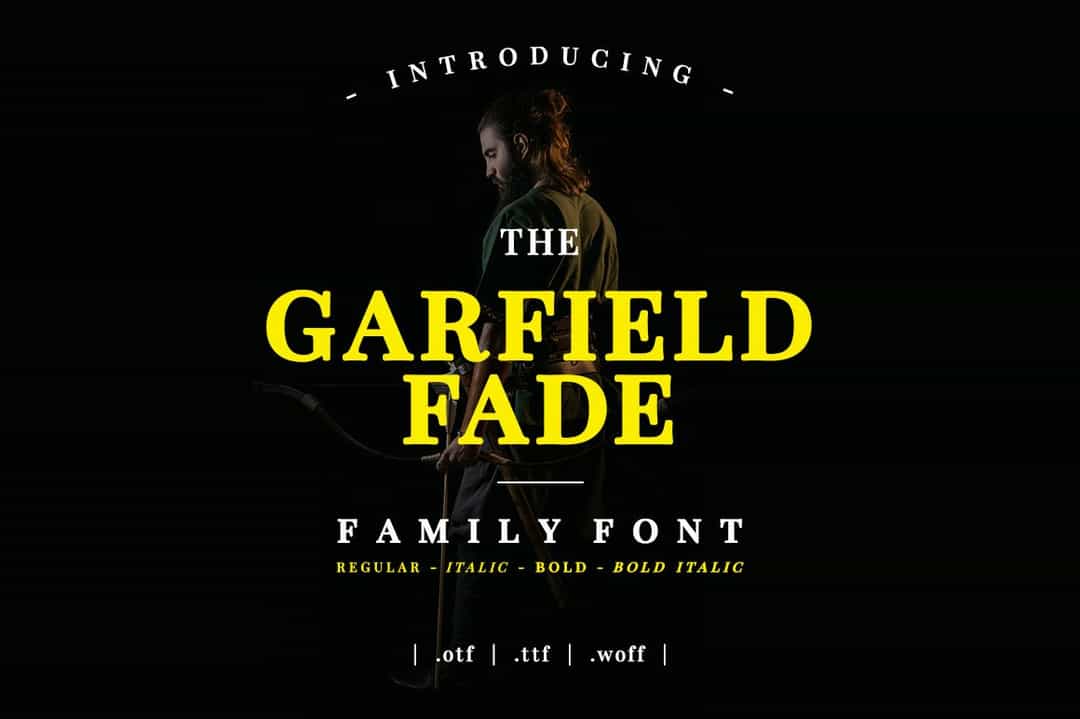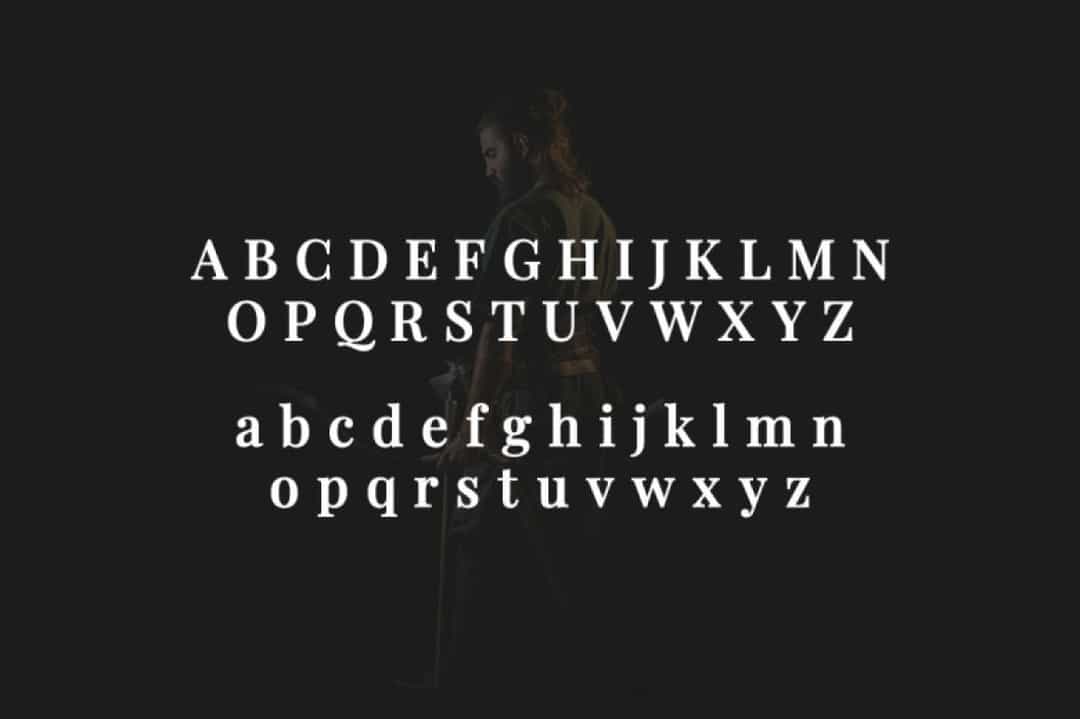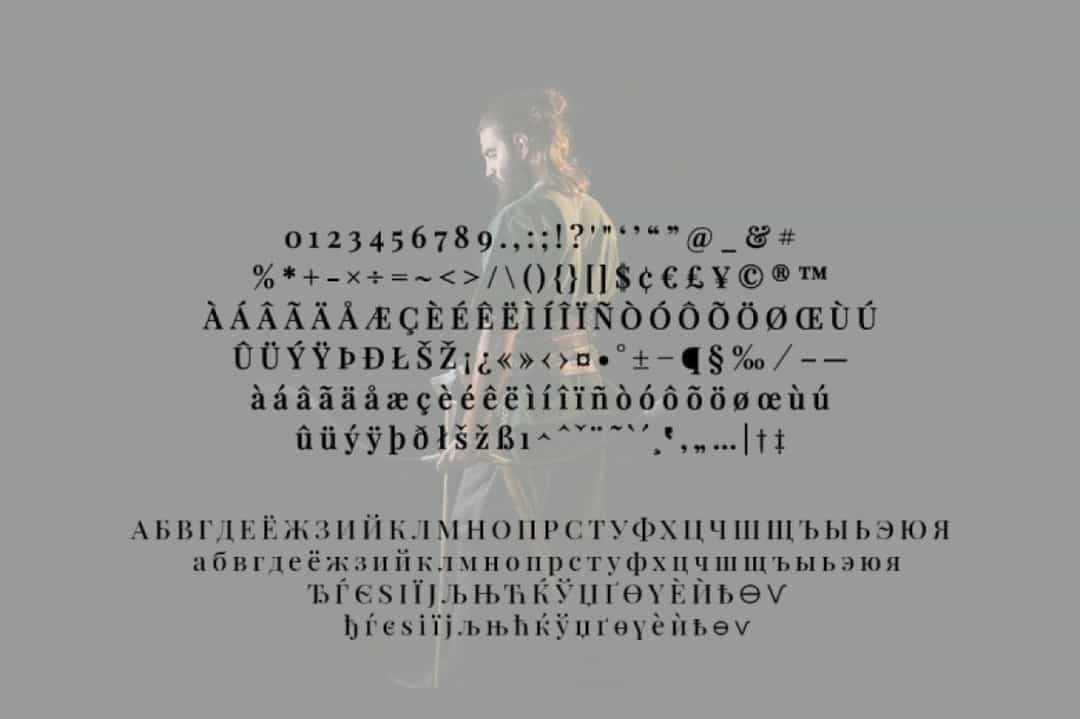
Discover Garfield Fade Font, part of the Serif collection—a versatile and unique font perfect for adding a personal touch to your projects. Download it for free and enjoy crafting designs with style, from invitations to social media posts. This font is available exclusively for personal use, giving you the freedom to create without limits. Unlock your creativity with Garfield Fade Font today!
Garfield Fade Font is perfect for posters, logos, music covers, clothing and various creative design projects. This font offers lowercase and uppercase characters from an international font family with regular italic bold italic and bold italic options available – as well as Bold Italic Bold-Italic options! Download your copy today & be sure to keep an eye out on our store for updates or exclusive font releases!